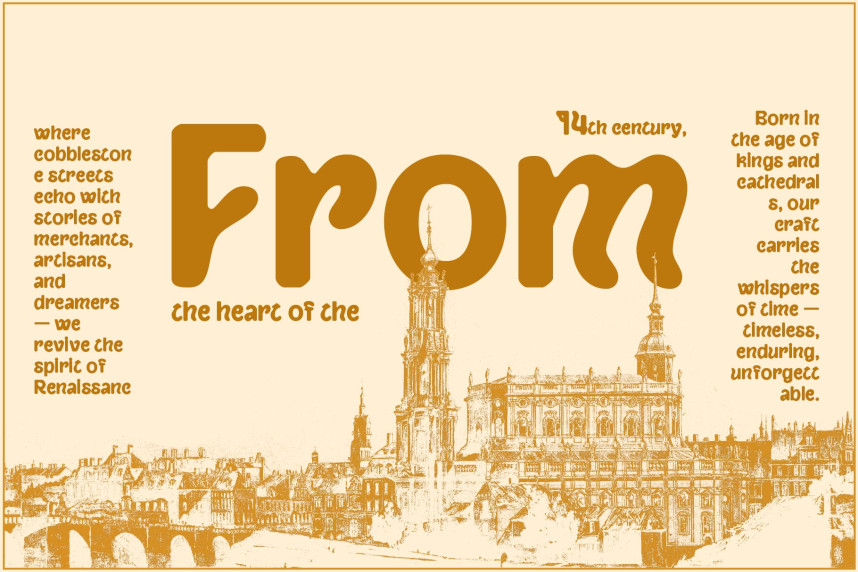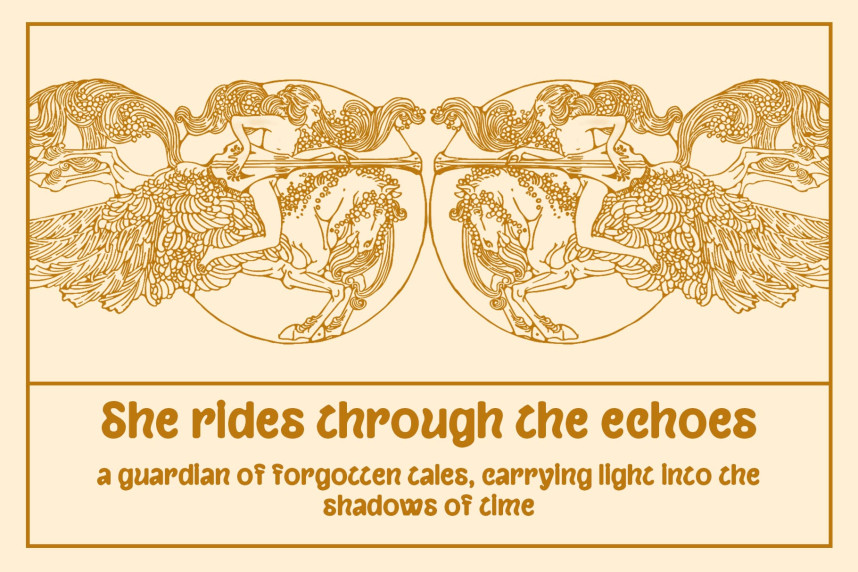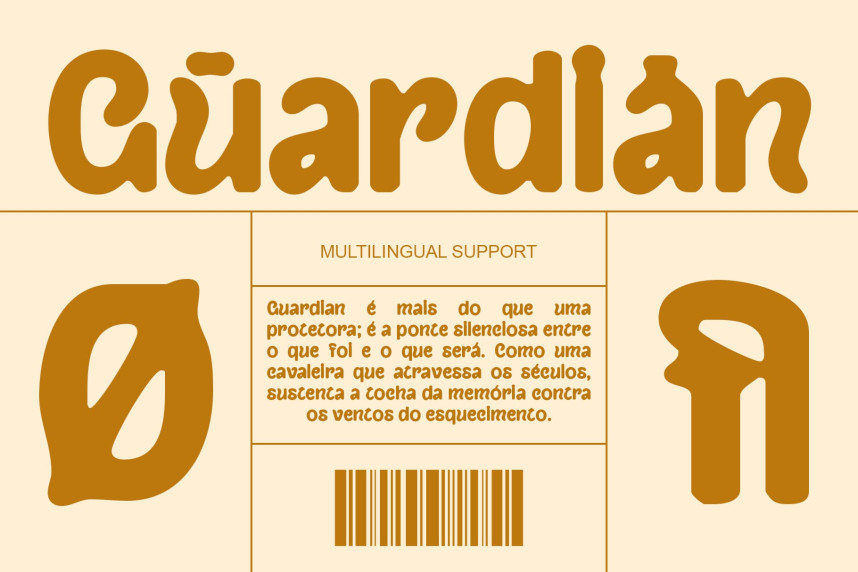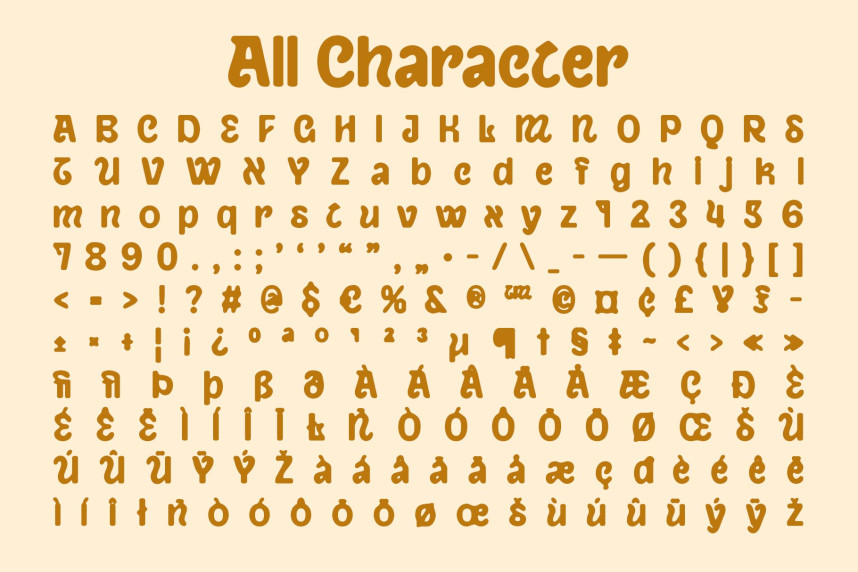
CS Ramiro Drawn Font
CS Ramiro Drawn – Renaissance Font: Ornamental Elegance, Classical Proportions, with Drawn Texture. The captures the ornate sophistication of Renaissance typography, blending historical charm with a modern artistic approach. With its flourished sans serif details and classical proportions, this font radiates a timeless beauty inspired by historic manuscripts and traditional calligraphy.
This font is especially suited for book covers, posters, invitations, or branding that requires a sense of heritage and grandeur. Its ornamental design ensures that headlines and titles stand out while still maintaining a graceful, dignified tone. For cultural institutions, luxury brands, or editorial layouts, this font offers the right balance of history and artistry.